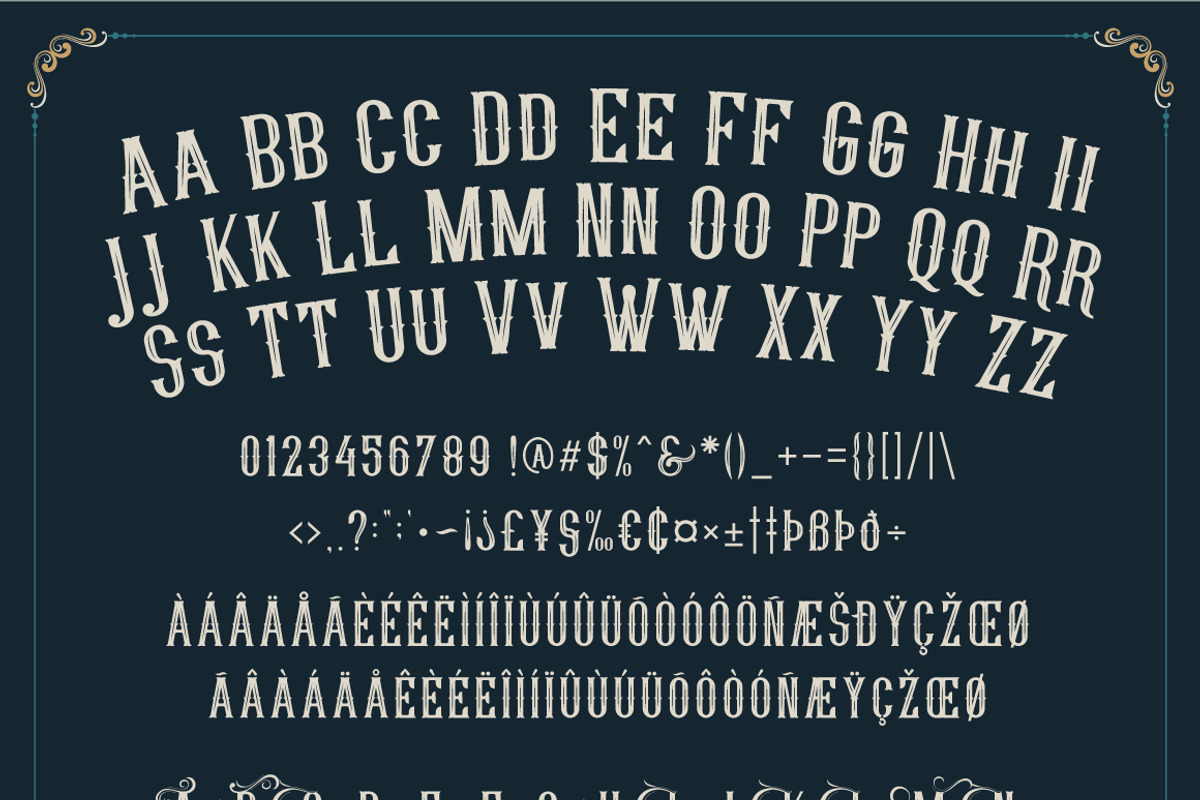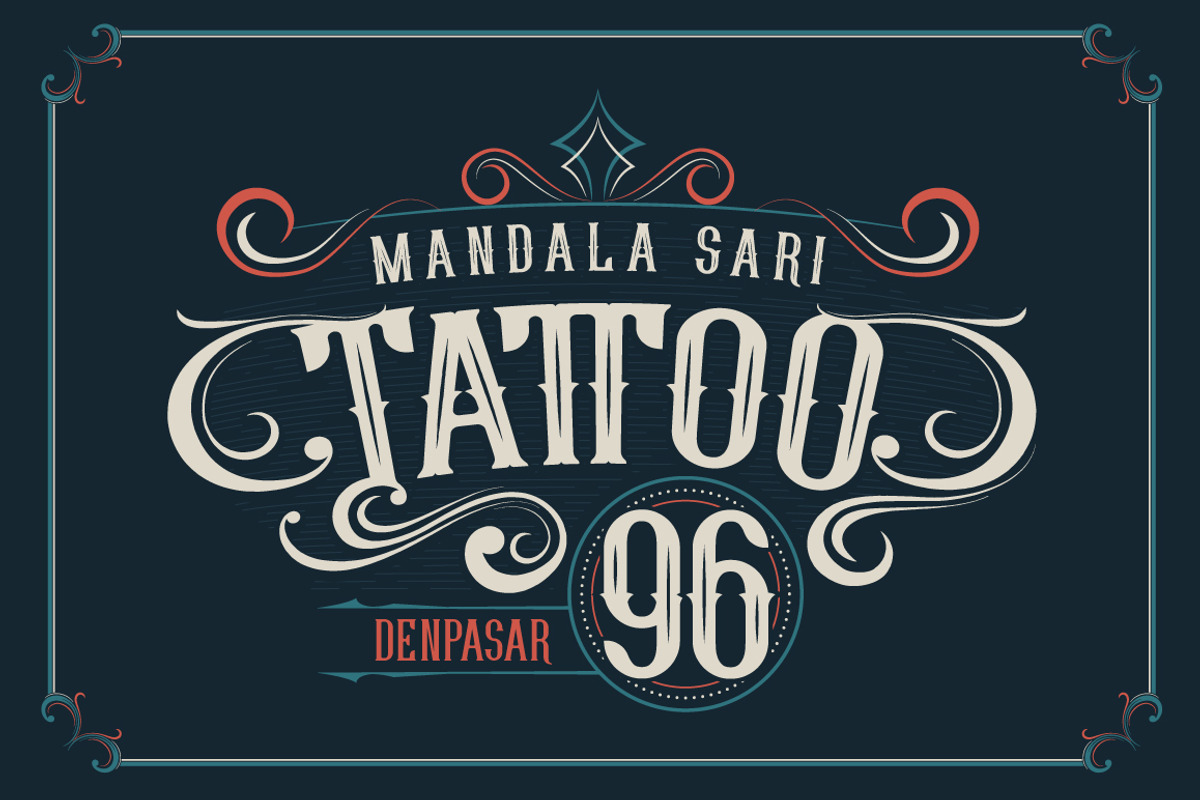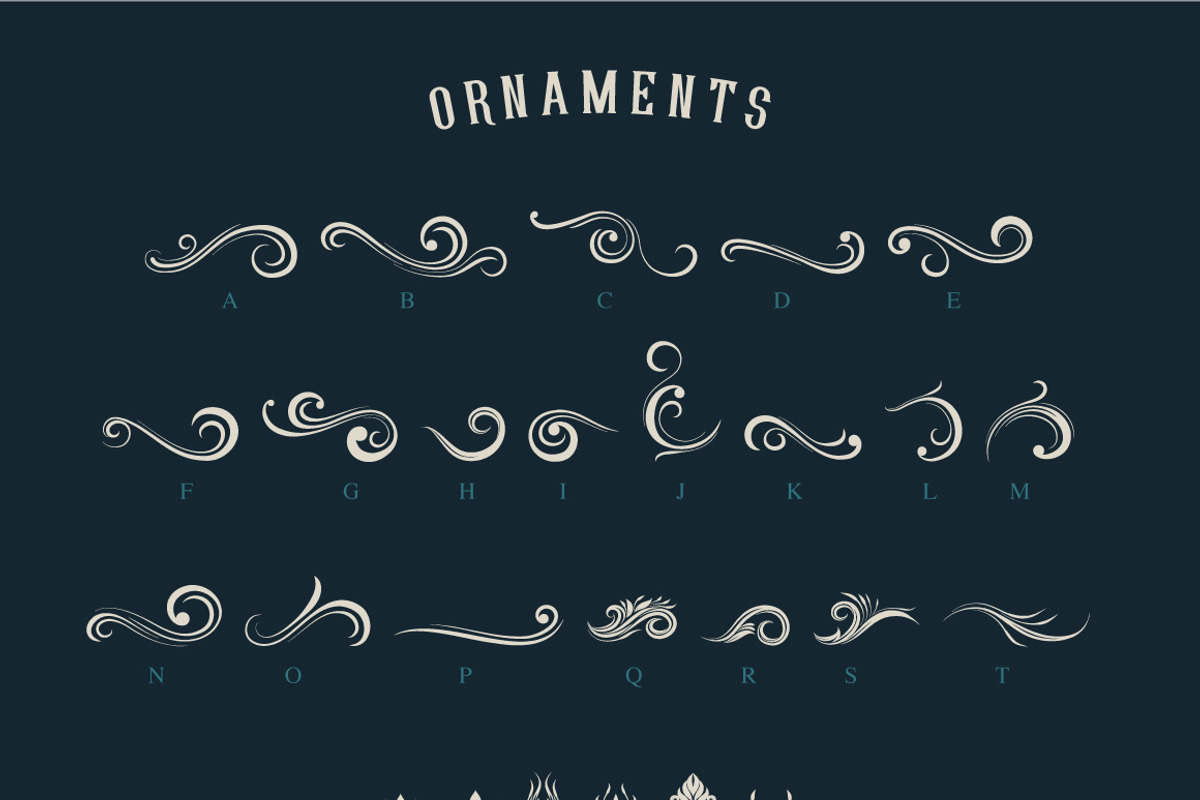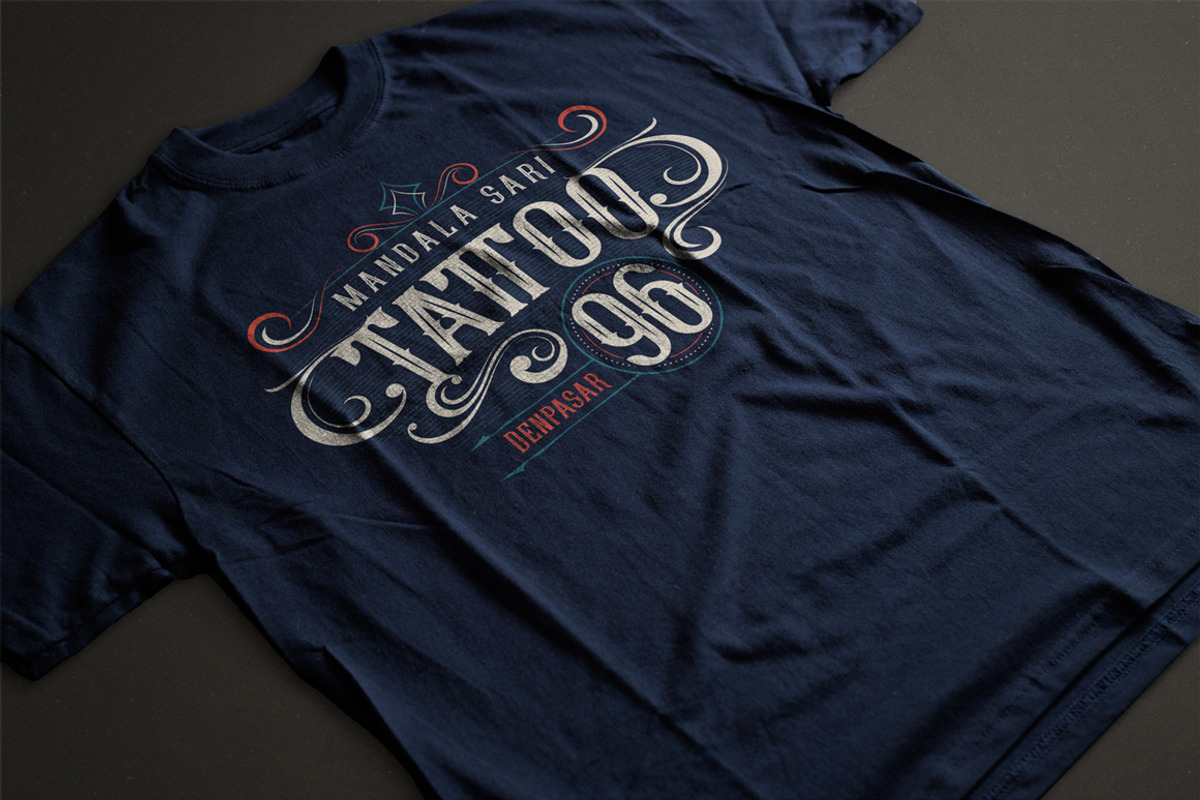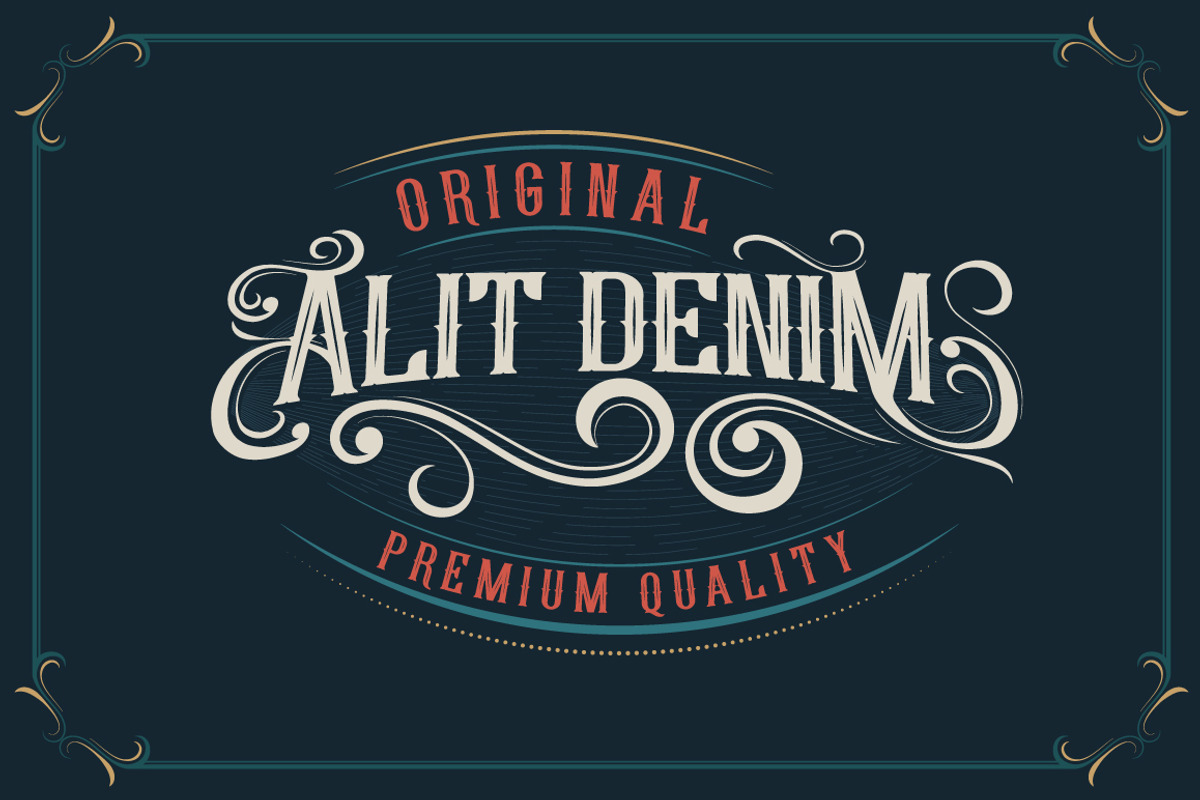
Young Heart Typeface
Young Heart Typeface by alit design is a font selected for branding, posters, packaging, typography.
- OpenType features with Stylistic Alternates.
Why Young Heart Typeface is worth a look
Young Heart Typeface by alit design fits naturally into Branding, posters, packaging, typography.